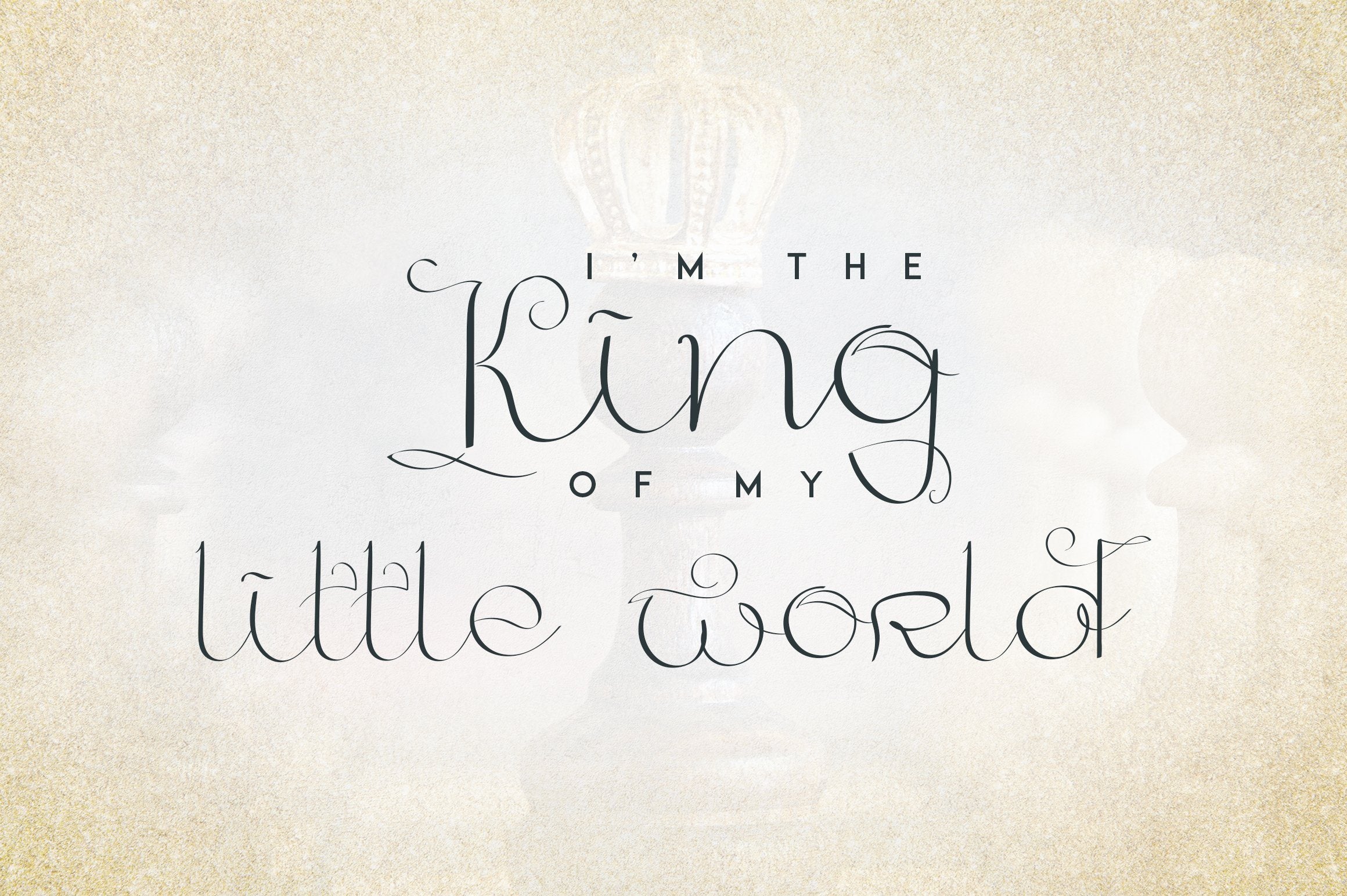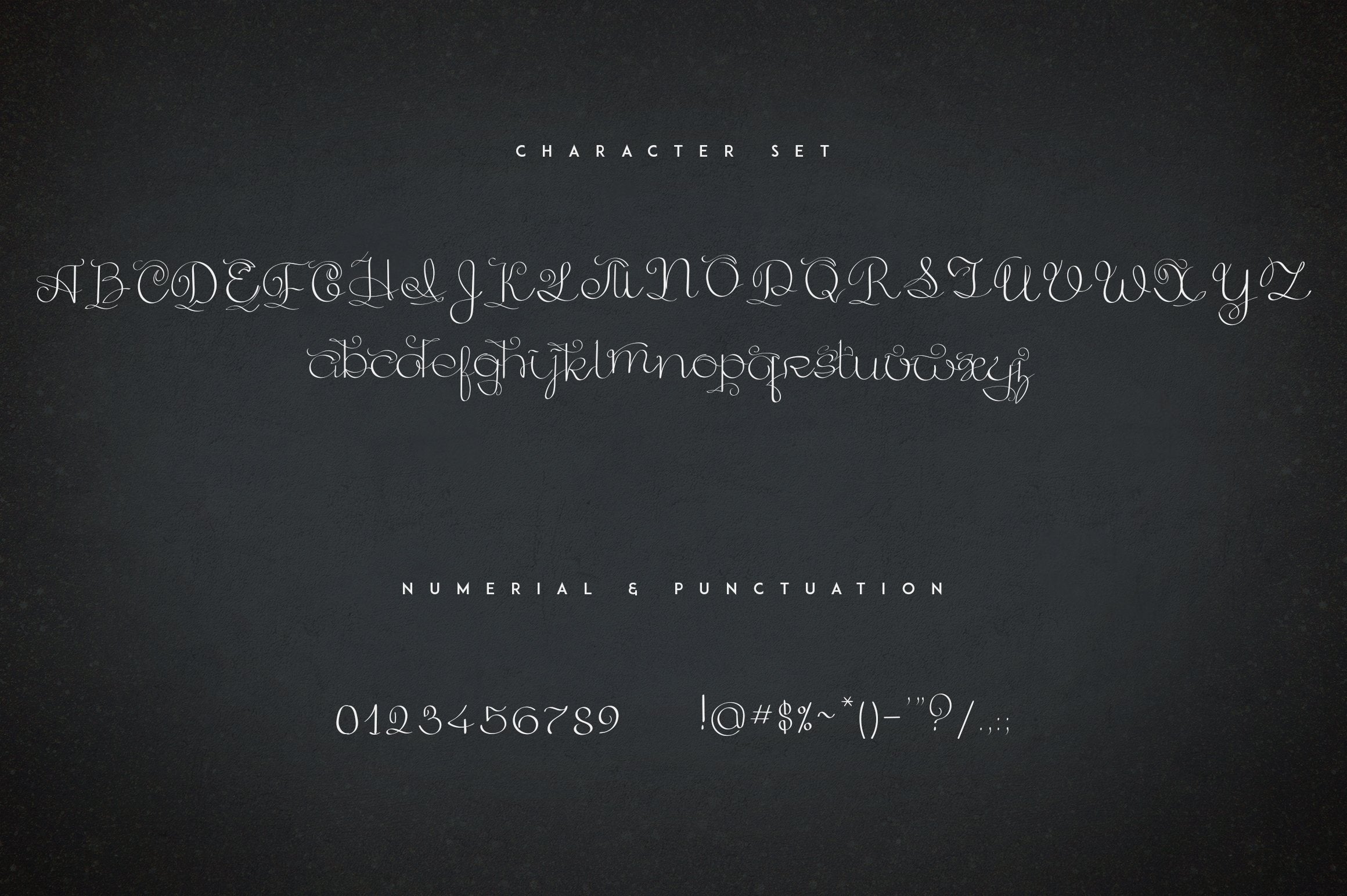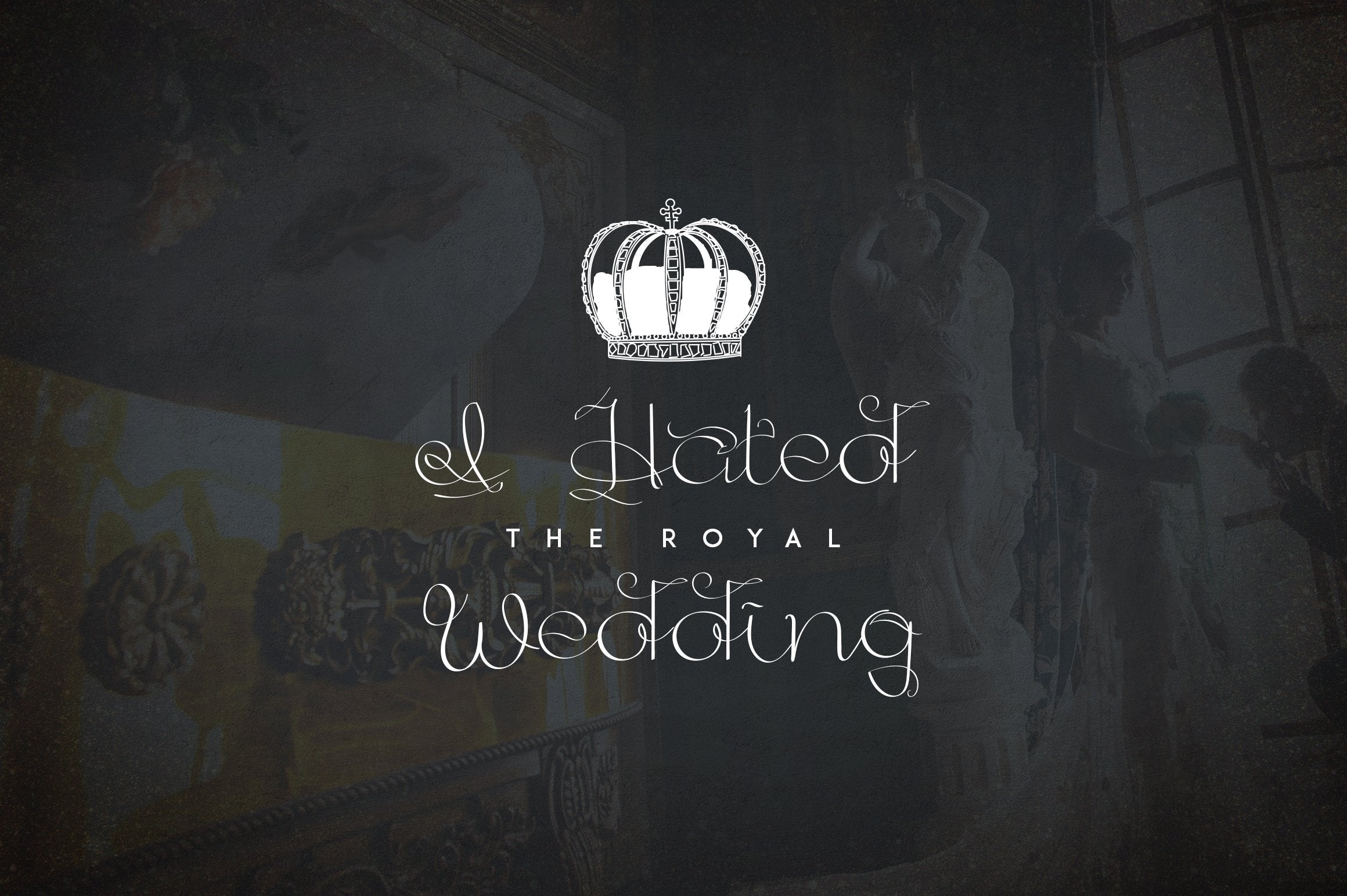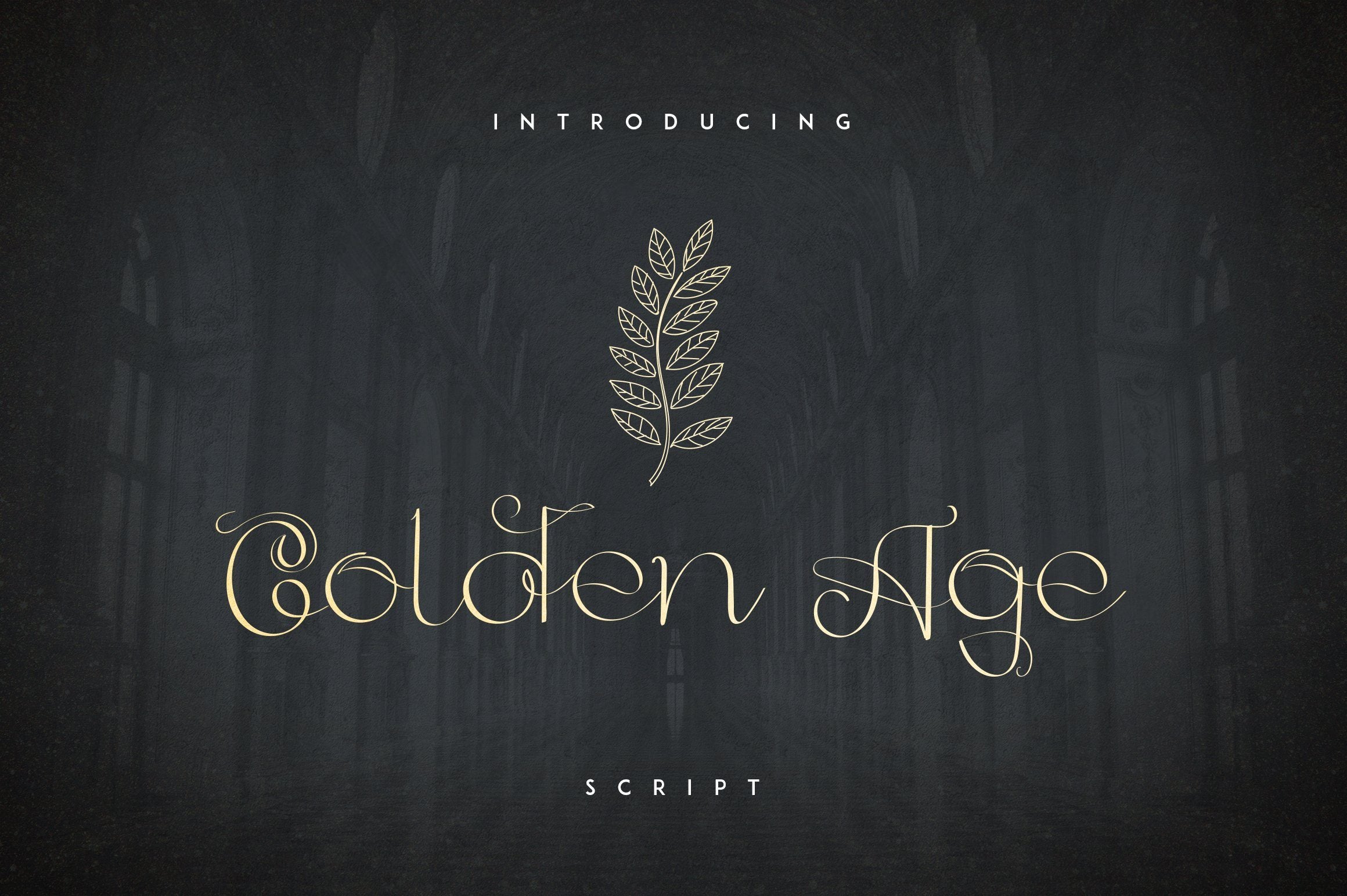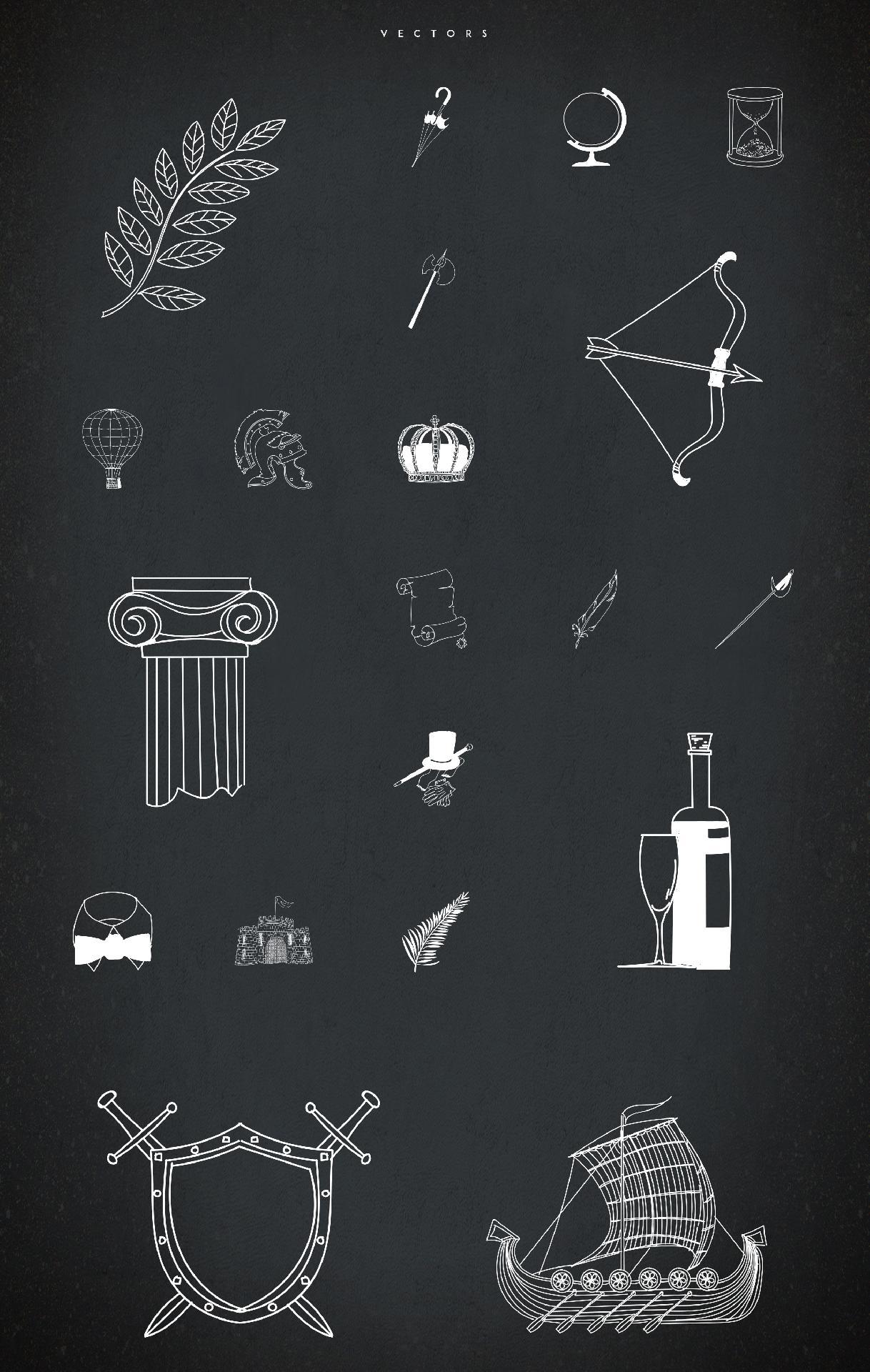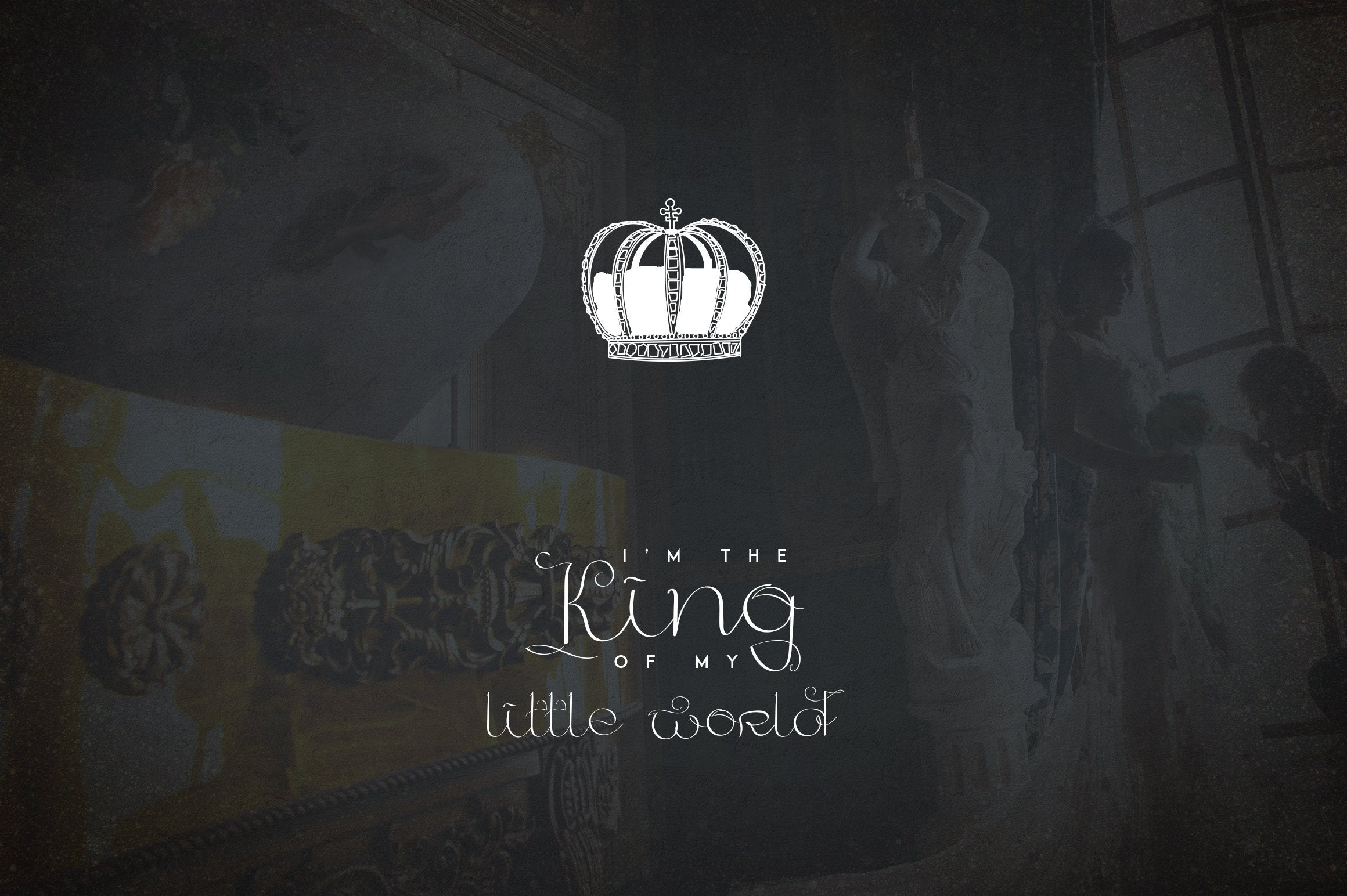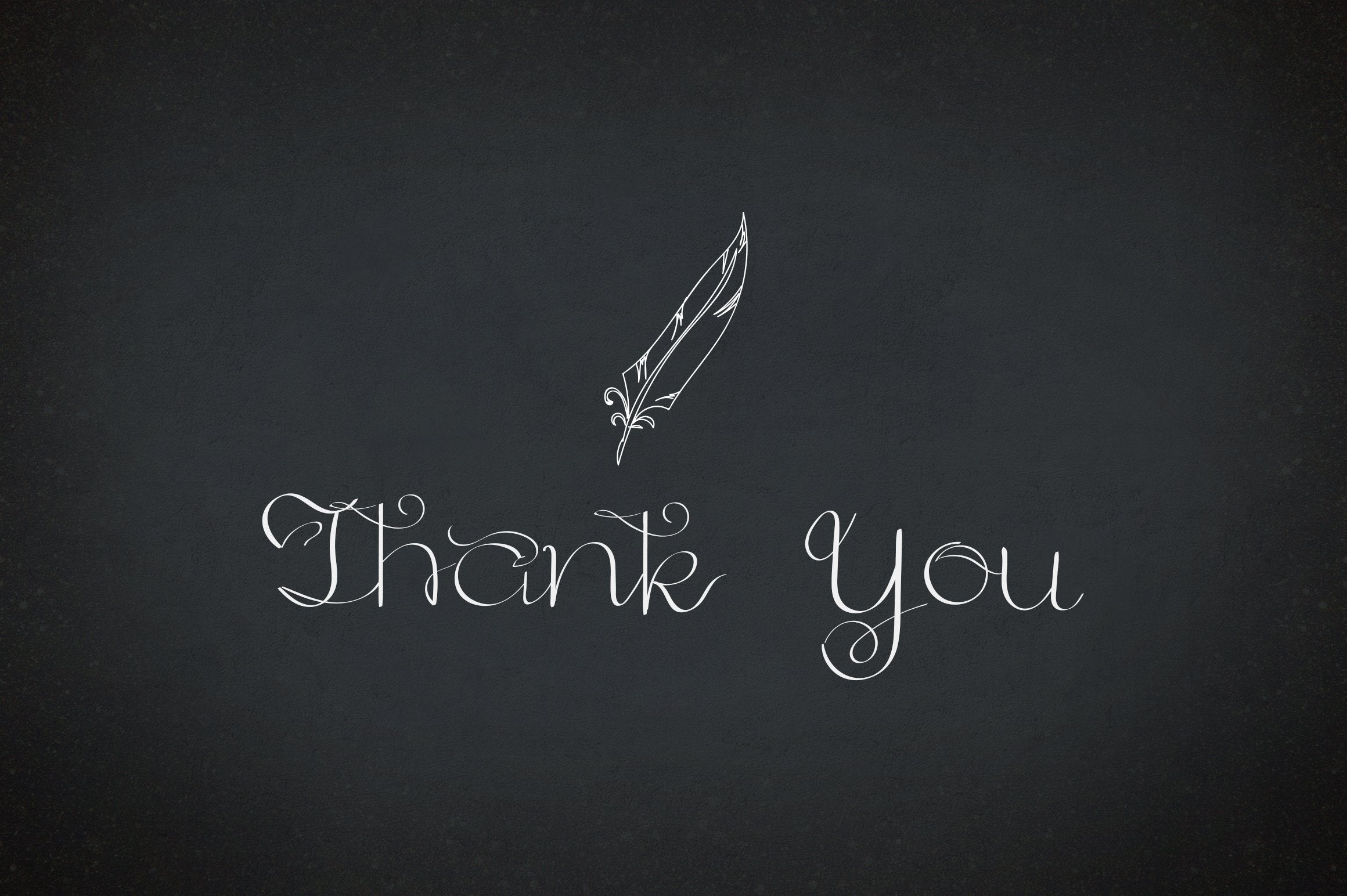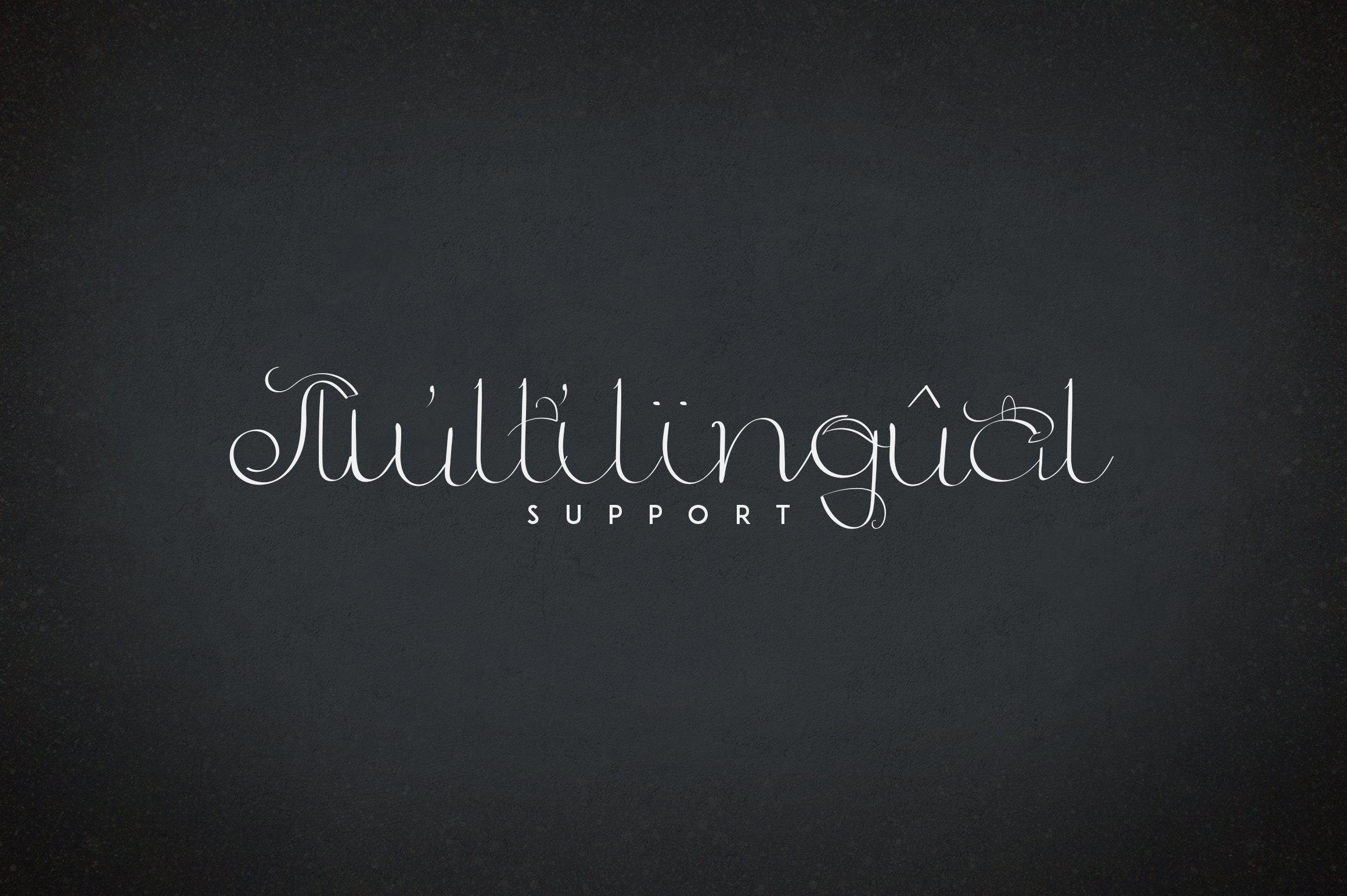
Golden Age Script
Introducing: Golden Age script A handwritten font with a personal charm. With dry clean lines, Golden Age is perfect for branding projects, home-ware designs, product packaging – or simply as a stylish text overlay to any background image. Uppercase,lowercase,numeral,punctuation & Symbol Multilingual 20 Handmade vectors Feel free to contact me if you have any questions! Mock ups and backgrounds used are not included! Thank you! Enjoy!